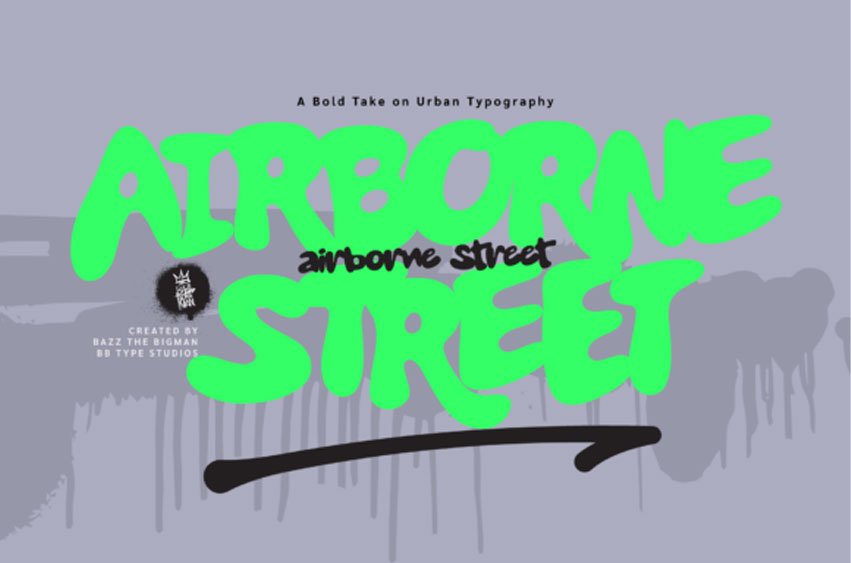
Airborne Street Font Infuse your design with dynamic energy and bold panache with Airborne Street, a quintessential bubble graffiti font. This typeface seamlessly merges the soft allure of rounded shapes with the relentless, audacious spirit of the streets, resulting in a striking visual vibe that is impossible to ignore.
Ideal for streetwear branding, eye-catching posters, punchy social media graphics, edgy album covers, or innovative packaging designs – Airborne street is an embodiment of urban charm that is irresistibly fun and commanding. Designed to encapsulate expressiveness, vitality, and versatility, this font ensures each letter adds character and high visual impact to your design project. Immerse your work in the captivating urban aura of Airborne Street and let it make a loud, unabashed statement.